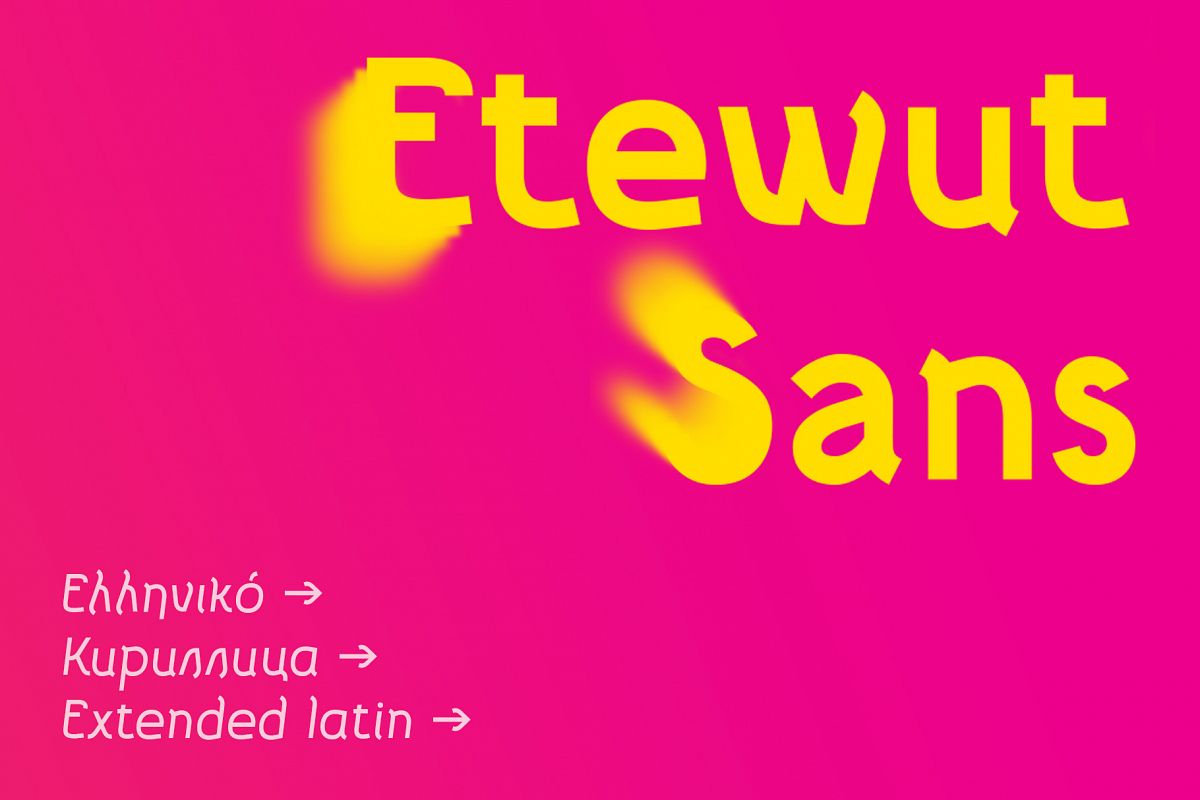
Etewut Sans
Etewut foundry proudly presents Etewut sans family. It includes 20 font styles and each of them supports extended Latin, basic Cyrillic and modern Greece languages. Styles variety is from formal and bold to italic and decorative. More of all there are many ligatures and alternative symbols in each font. And finally the typeface has minuscule letters and numbers!